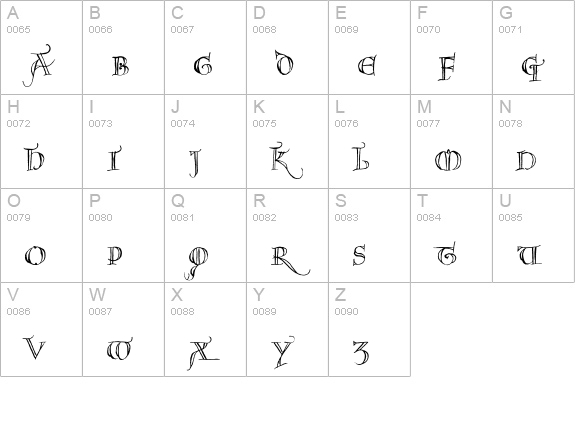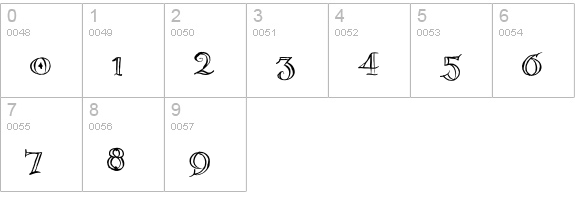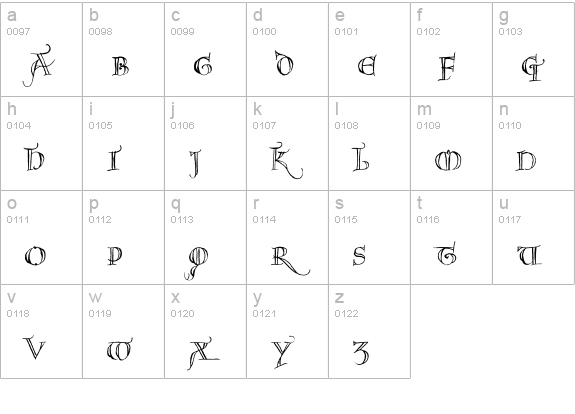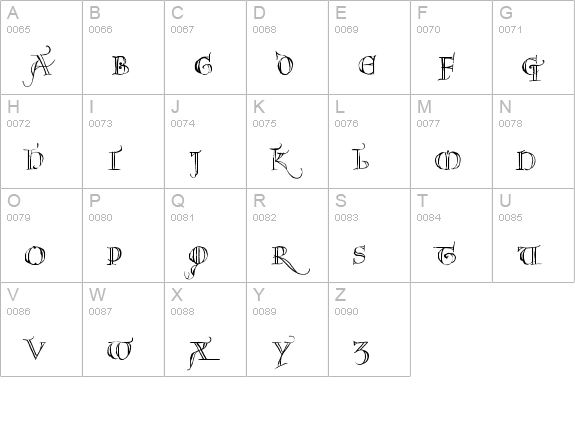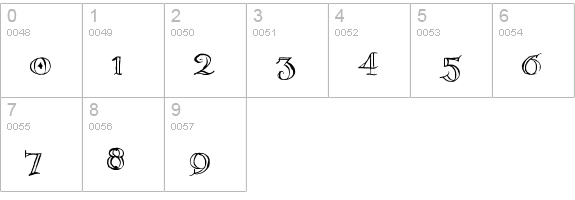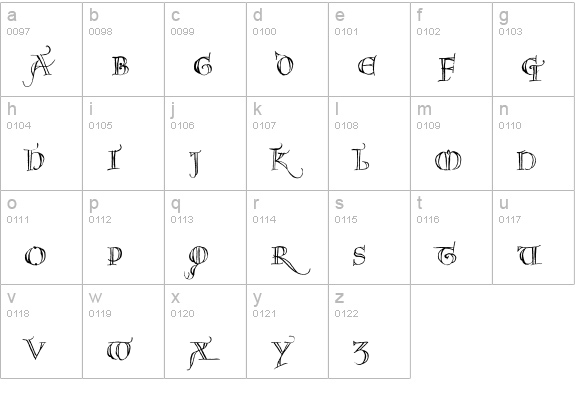
Noel Font Details
Noel font is a beautifully crafted typeface that exudes elegance and sophistication. Its graceful curves and stylish letterforms make it perfect for adding a touch of class to any design project. With its timeless appeal, Noel font is sure to make a lasting impression. The best part about Noel font is that it is completely free! You can easily download this stunning typeface from FontsMarket.com and use it in your personal or commercial projects without any restrictions. Don't miss out on the opportunity to enhance your designs with this exquisite font that is both stylish and versatile. Download Noel font today and elevate your typography game to new heights!